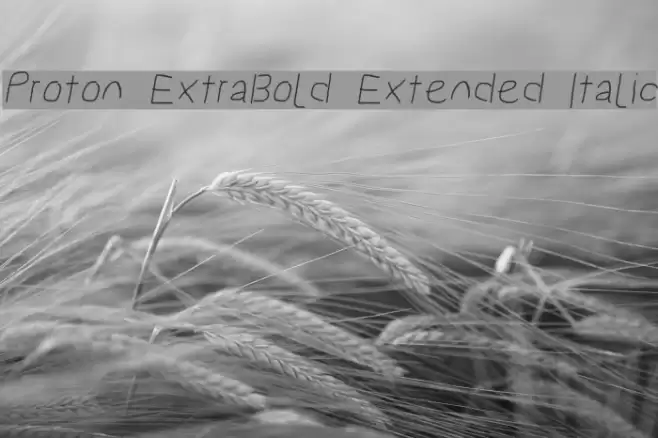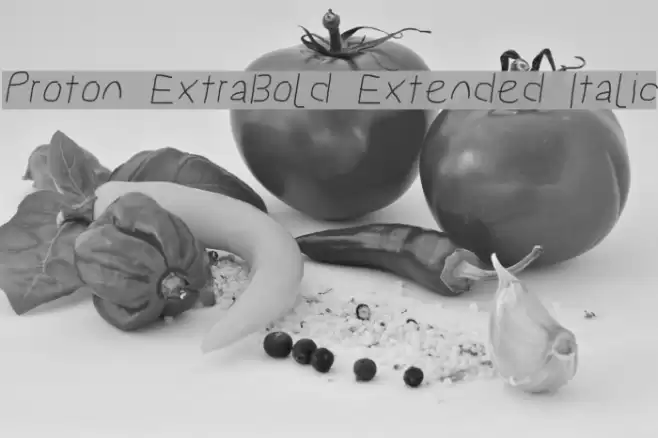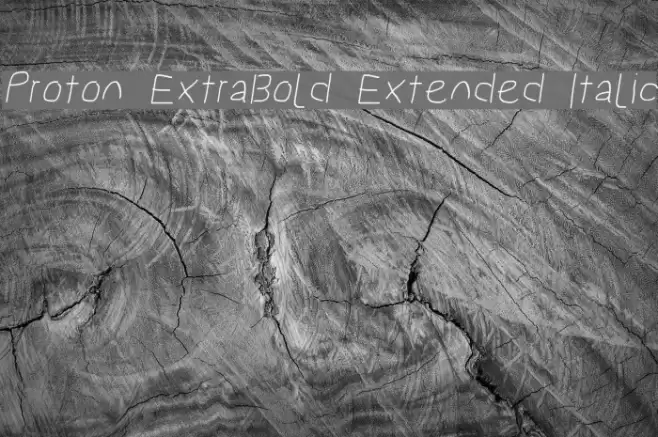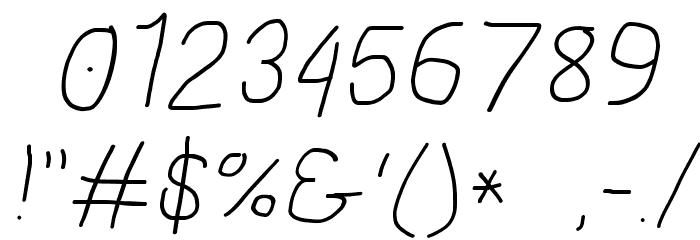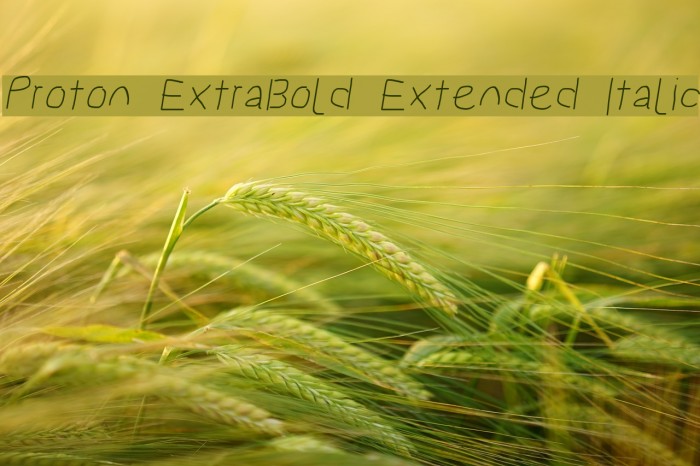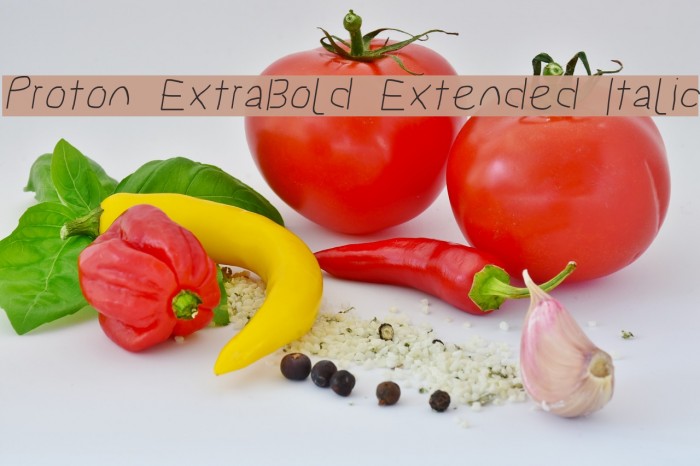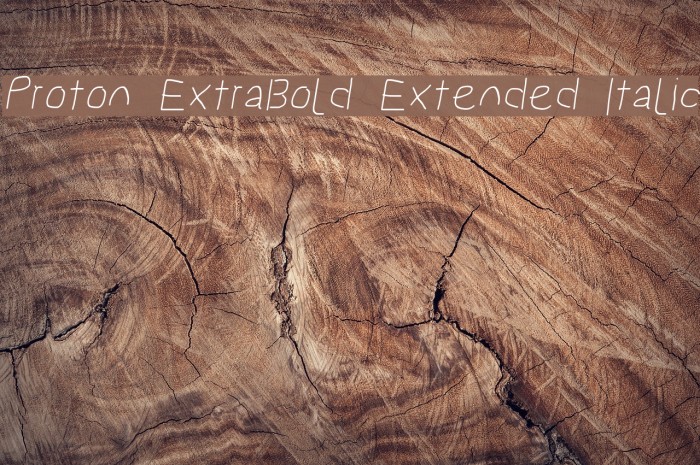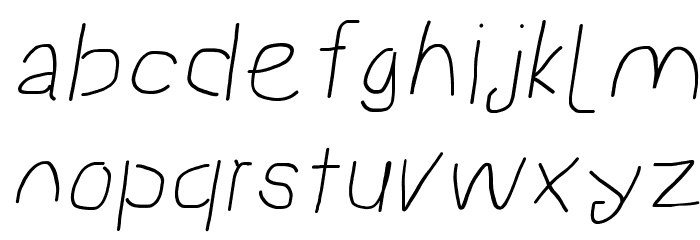
Proton ExtraBold Extended Italic
This font features a dynamic and energetic style with a handwritten appearance. The characters are slightly slanted, giving an italicized look, and the strokes are consistent in thickness, providing a uniform appearance. The letters are extended, offering a spacious feel, and the overall design is clean and modern. The uppercase and lowercase letters maintain a cohesive style, while the numerals and special characters complement the alphabet with similar characteristics. This font is suitable for projects that require a personal touch or a casual, yet professional, aesthetic.
A modern, handwritten-style font with an italic and extended design.
- Proposed Projects: Ideal for branding, invitations, greeting cards, and creative projects that require a personal touch.
- Width: Expanded
- Use Case: Logos, Invitations, Greeting Cards